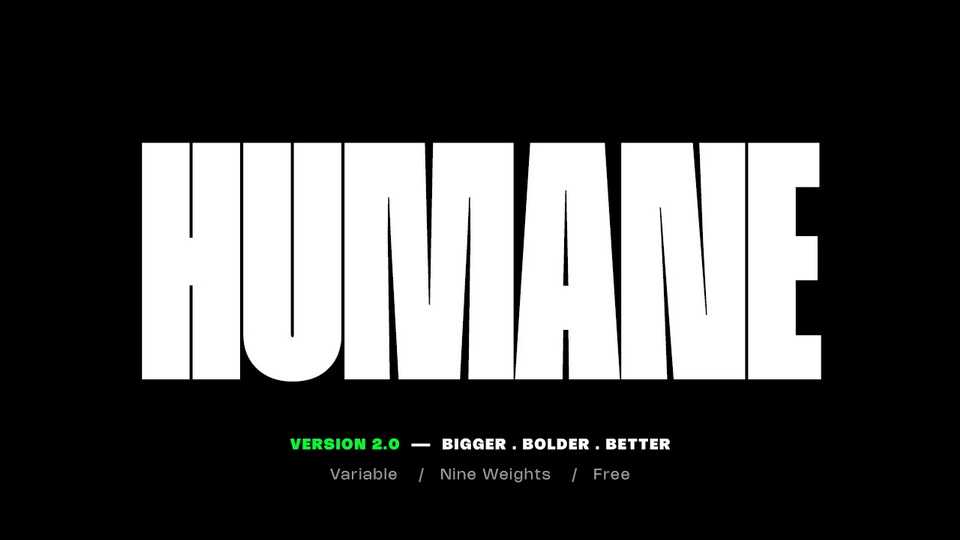
Download Humane V.2.0 font, a sans serif typeface now with two new weights: Extra Bold and Black. Humane V.2.0 features fine-tuned every character for enhanced design, expanded language support, and improved diacritic marks.
Designer: Rajesh Rajput